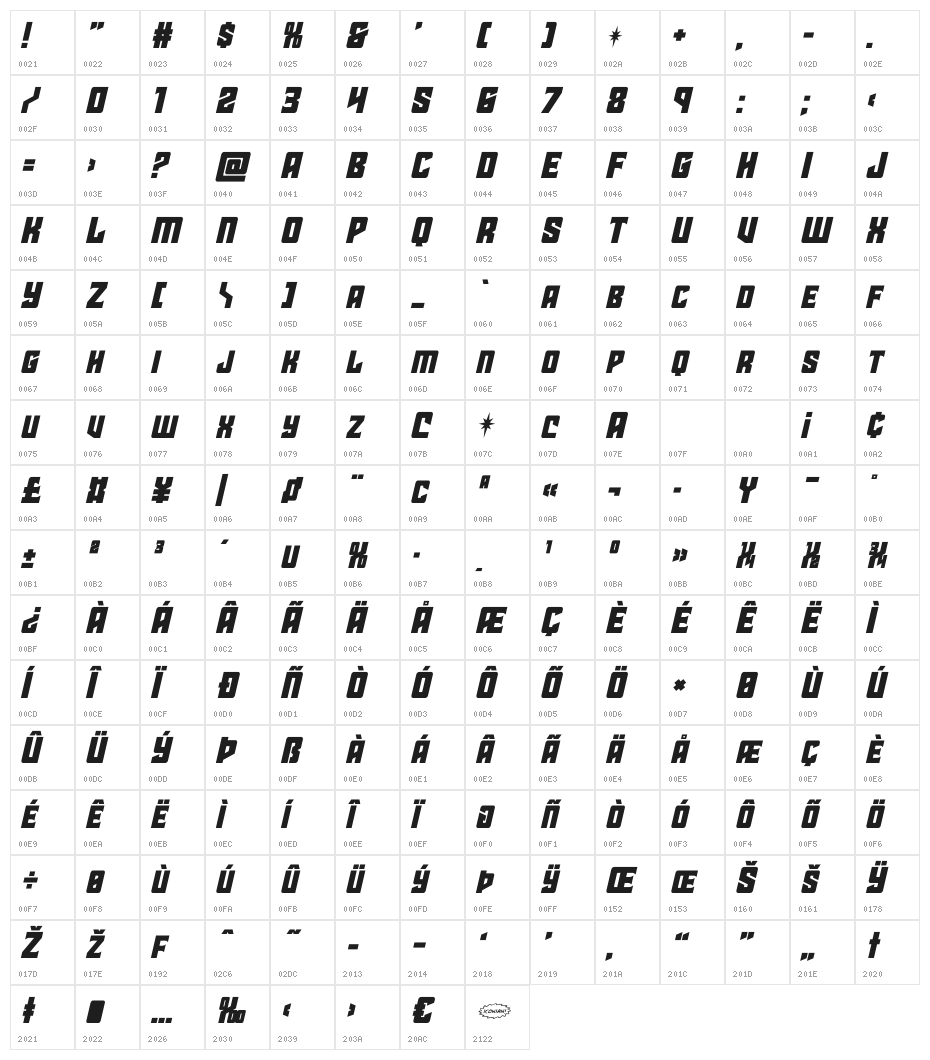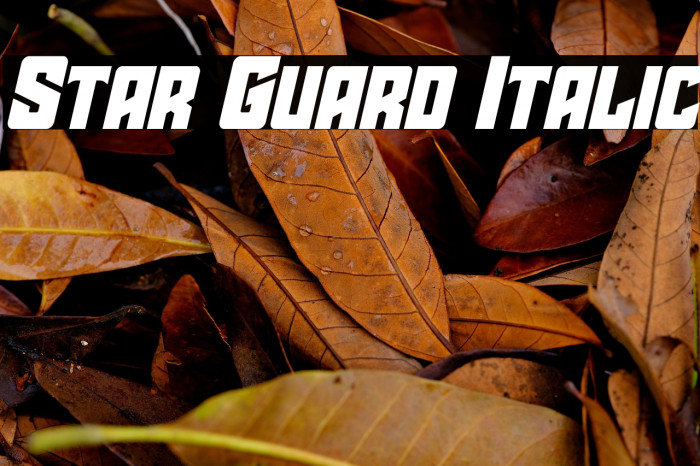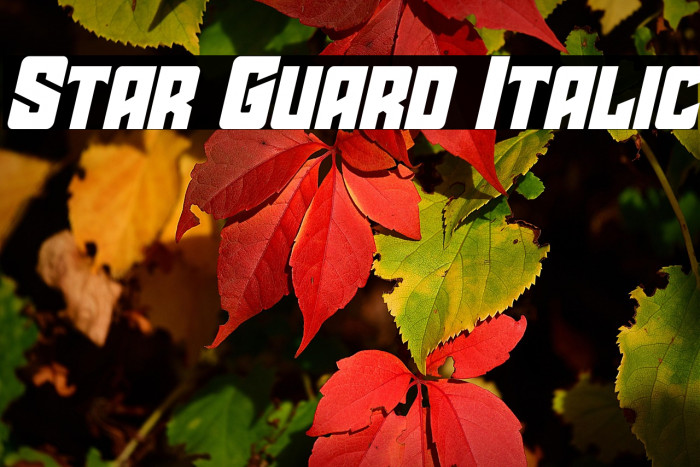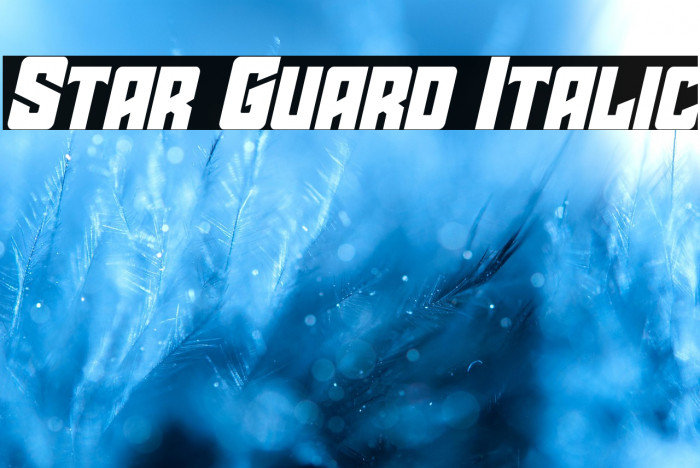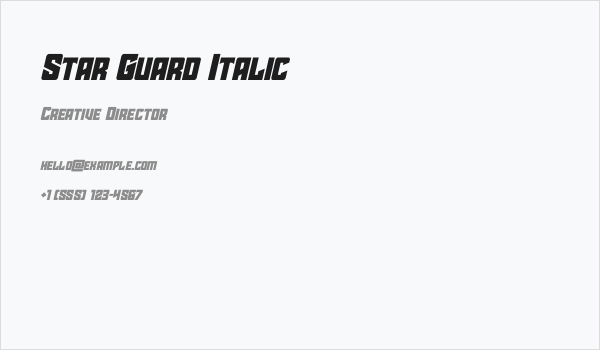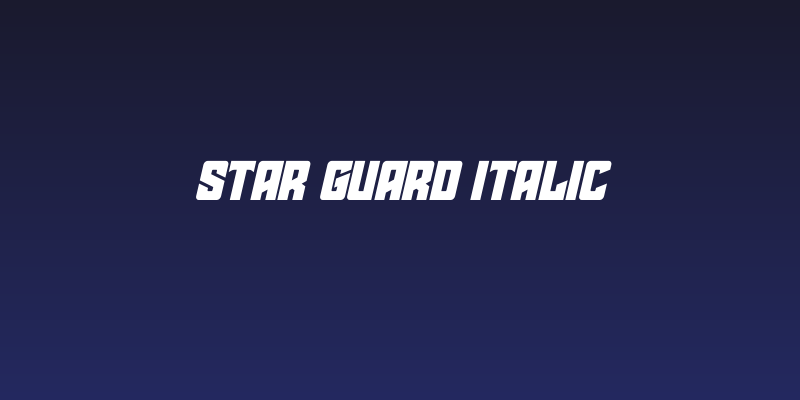
Star Guard Italic Font
Star Guard Italic Description
This font features a bold, italicized style with a futuristic and dynamic appearance. The characters are sharply angled, giving them a sense of motion and energy. The uppercase letters are particularly striking, with a strong presence that demands attention. The numbers and special characters maintain the same boldness and angularity, ensuring consistency across all glyphs. This font is ideal for projects that require a modern and assertive look, such as sci-fi themes or action-oriented designs. The overall design is cohesive, with each character contributing to the font's distinctive style.
Proposed ProjectsIdeal for sci-fi themes, action-oriented designs, video game titles, and modern branding.